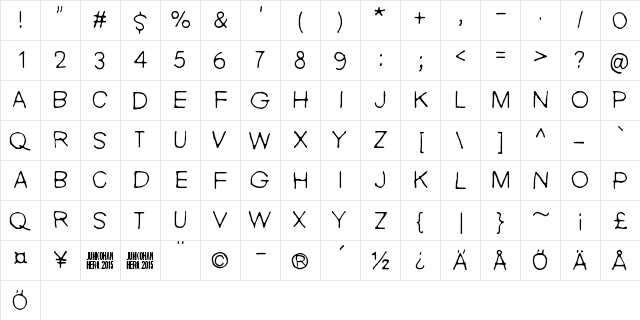
Nie Zabawne Komik Regular
Design Context for Nie Zabawne Komik Typeface
Nie Zabawne Komik offers clean, dependable letterforms without strong stylistic allegiance, making it a practical choice for designers who need flexibility.
Pro Tip: Use Nie Zabawne Komik in both headline and body roles to test its range before committing to a single application.